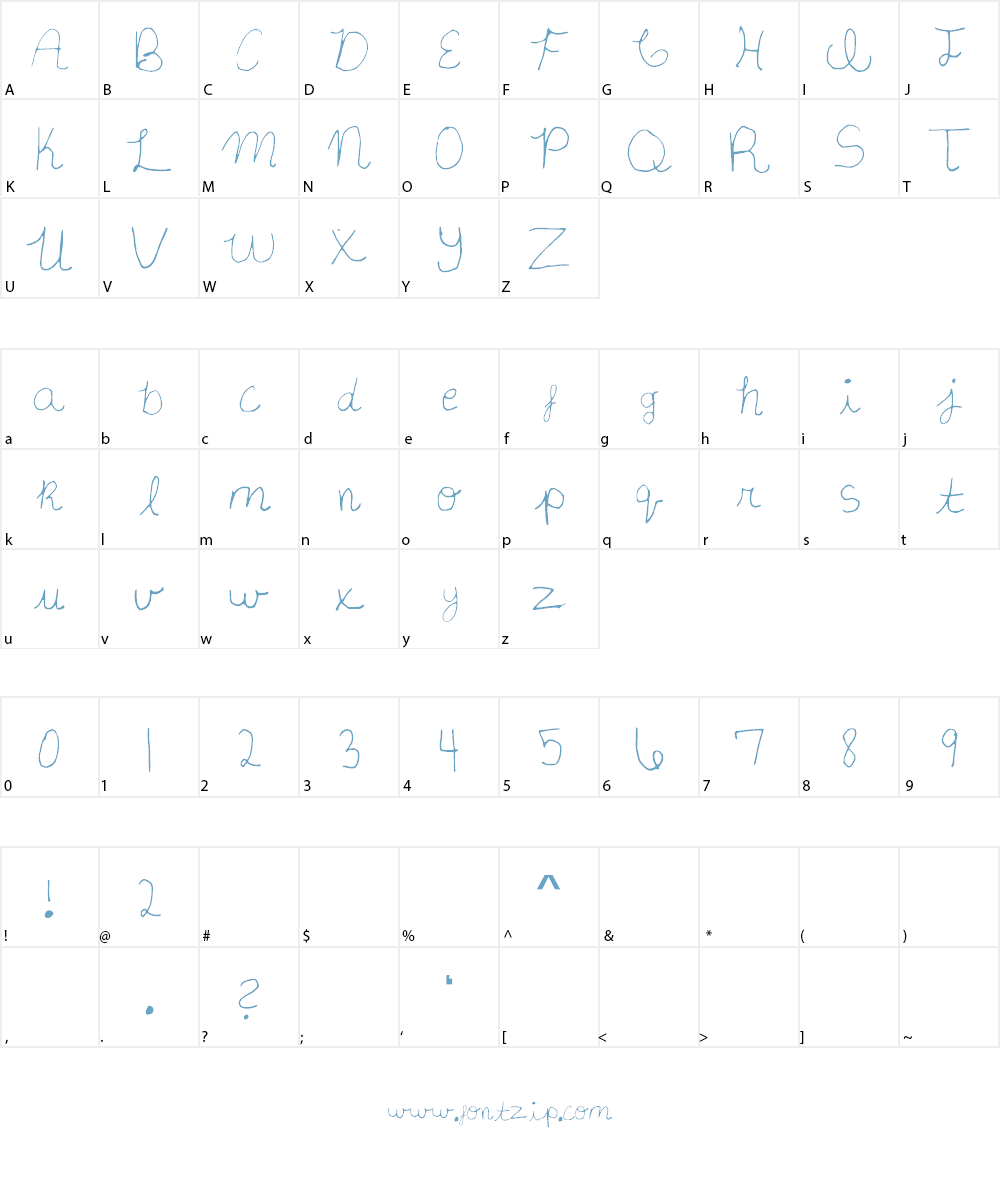
Have you ever seen those people whose writing mimics that of perfection? And yours looks like cursive and print had a battle on your page?
Well I present to you, Bipolar Cursive, the battle except...on your computer. :)